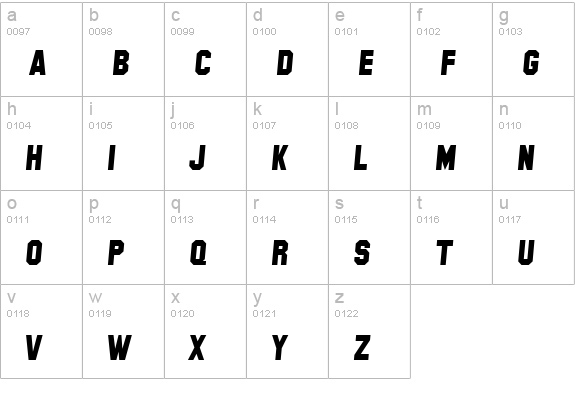
SF Collegiate Solid Italic Font Details
SF Collegiate Solid Italic is a distinctive, italic variant in the SF typeface family \xE2\x80\x94 well suited to design and typography projects.
SF Collegiate Solid Italic font is a modern and stylish typeface that exudes an air of sophistication and elegance. With its unique design, this font is perfect for adding a touch of class to any project. Whether used for headlines, titles, or body text, SF Collegiate Solid Italic font is sure to make a statement. This font features a solid and bold style, which adds strength and stability to the overall appearance. Its italicized form adds a sense of motion and dynamism, making it ideal for projects that require a touch of creativity and energy. The carefully crafted curves and sharp angles of SF Collegiate Solid Italic font give it a distinct and eye-catching look. What's even better is that SF Collegiate Solid Italic font is available for free download at FontsMarket.com. This means that you can easily access this font and use it in your personal and commercial projects without any hassle. FontsMarket.com offers a wide range of fonts, and SF Collegiate Solid Italic is one of the standout choices. Whether you're a graphic designer, a web developer, or simply someone who appreciates high-quality typography, SF Collegiate Solid Italic font is a must-have. Its versatility and unique design make it suitable for a variety of projects, from logo designs to website headings and everything in between. So don't miss out on the opportunity to enhance your designs with the elegance and style of SF Collegiate Solid Italic font. Download it for free at FontsMarket.com and let your creativity soar.